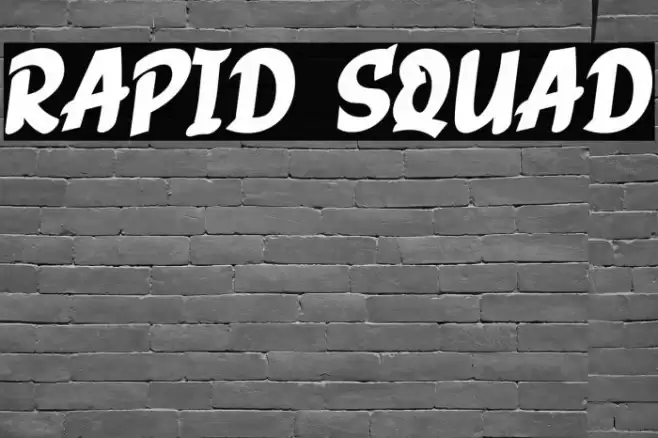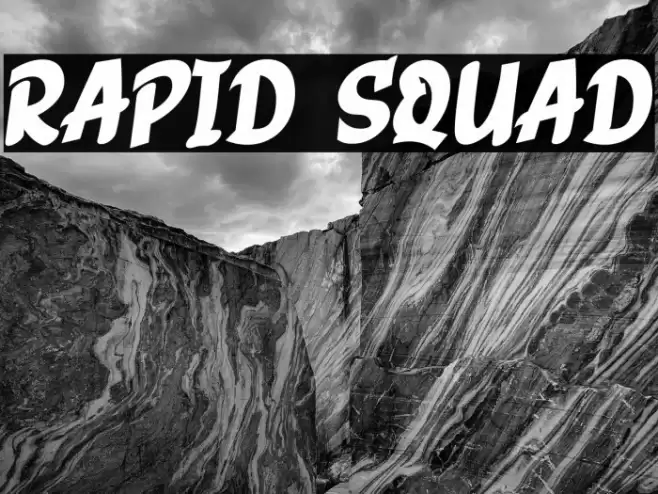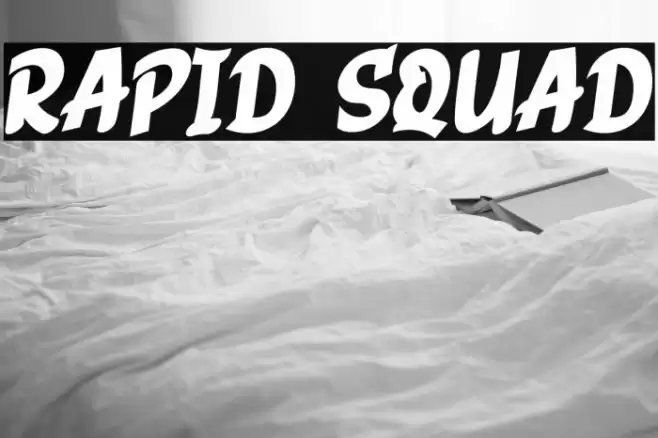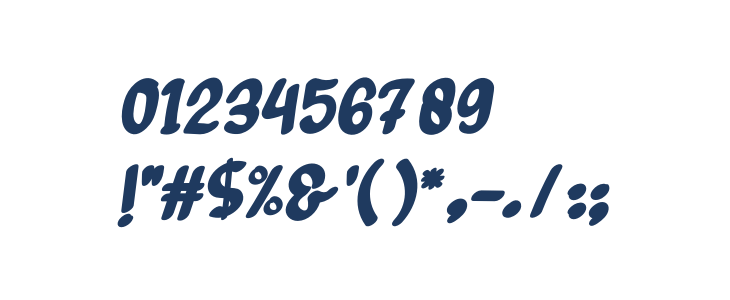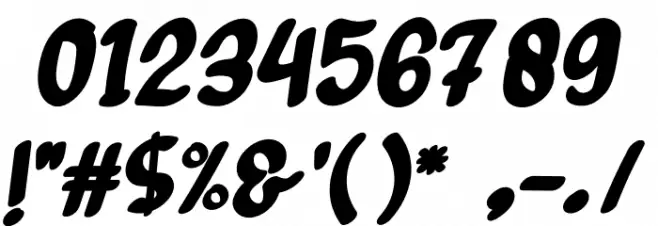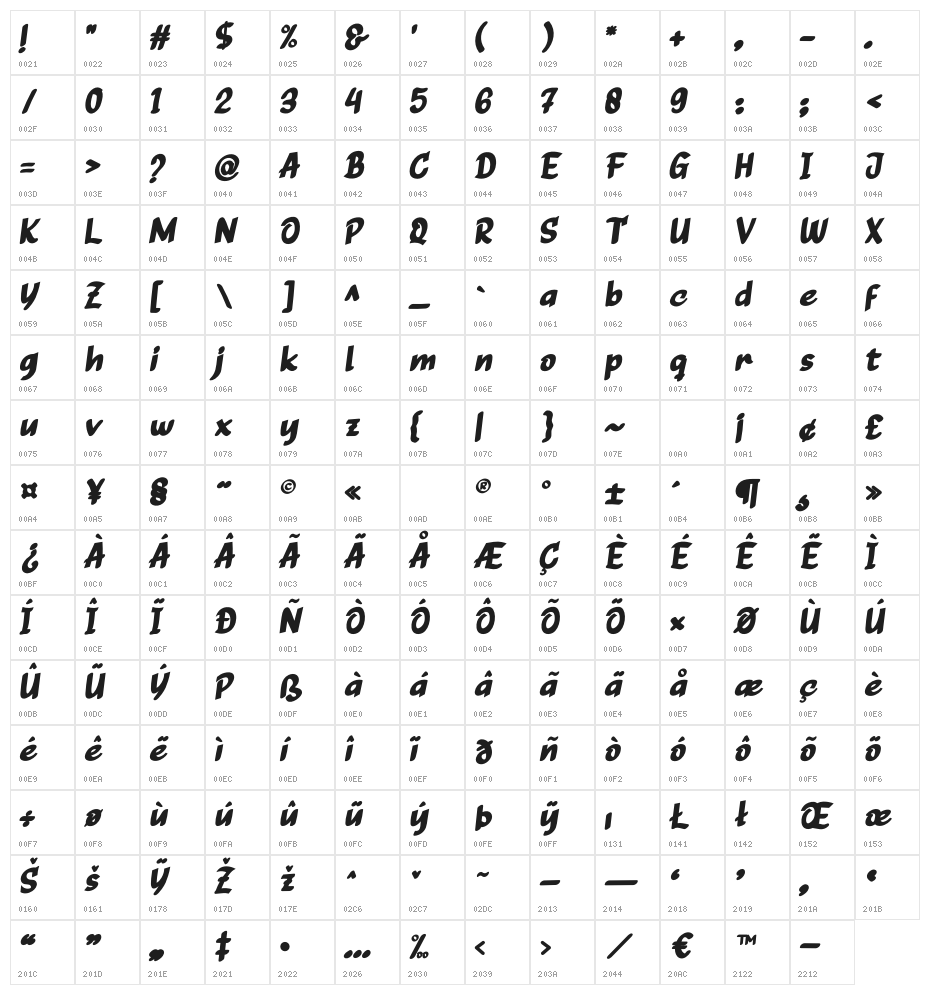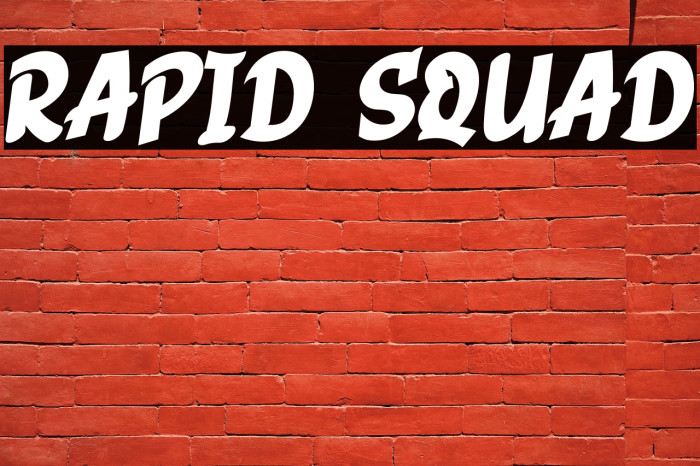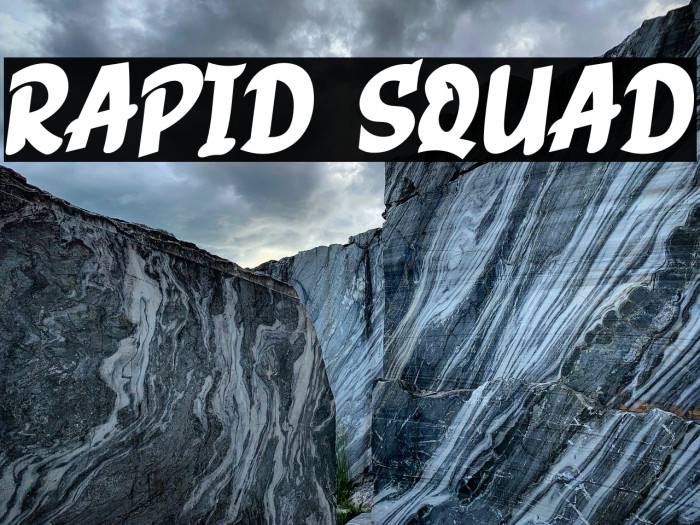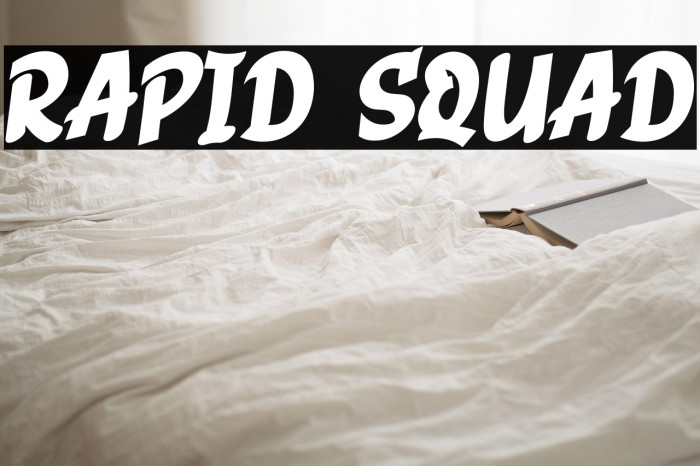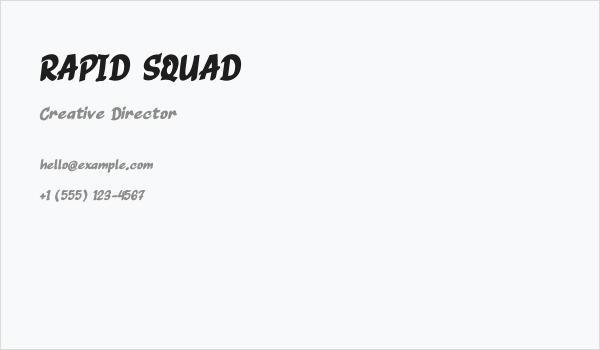
RAPID SQUAD Font
RAPID SQUAD Description
This font features a bold and dynamic style with a strong presence. The characters are slightly slanted, giving it an energetic and forward-moving appearance. The strokes are thick and consistent, providing a sense of strength and stability. The uppercase letters are bold and commanding, while the lowercase letters maintain a playful yet assertive look. The numerals are equally robust, ensuring readability and impact. Special characters are designed to match the overall boldness and style, making this font suitable for attention-grabbing designs.
A bold, dynamic font with thick, slanted strokes for a strong, energetic look from Uncategorized fonts.
- Proposed Projects: Ideal for sports branding, dynamic posters, bold headlines, and impactful logos.